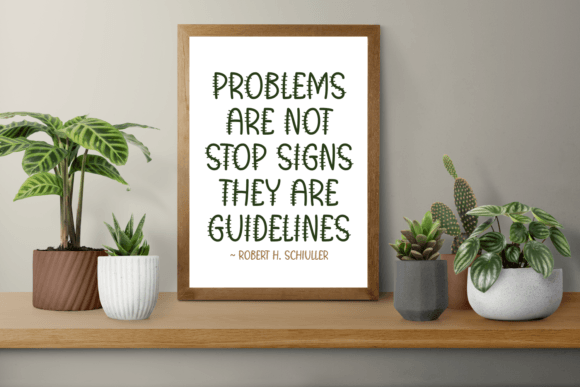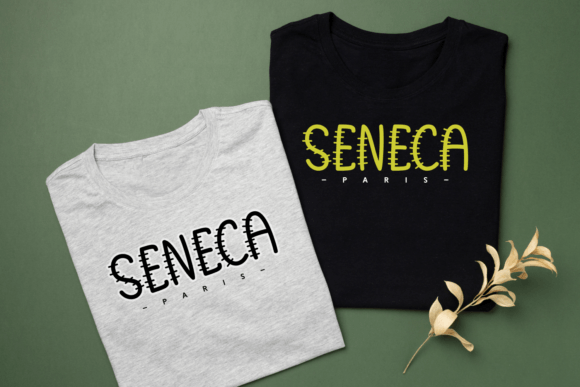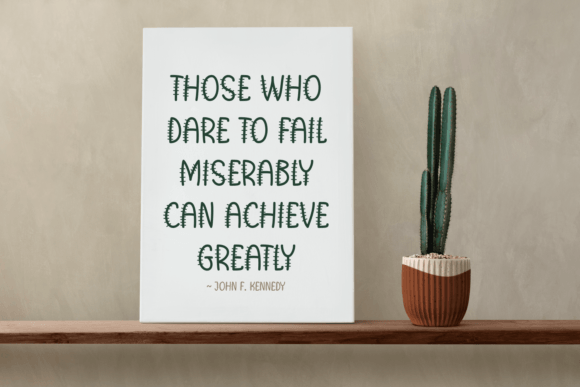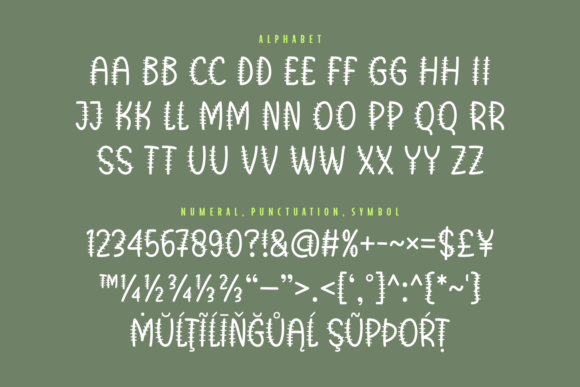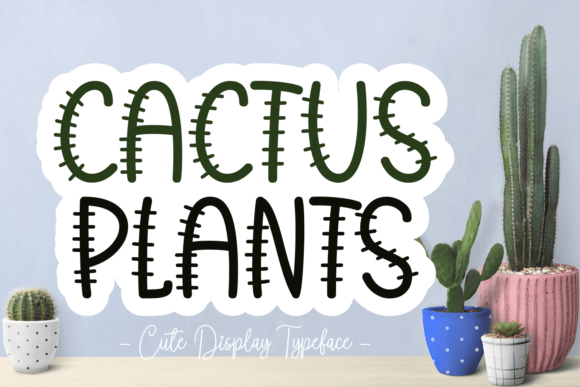
The Prickly yet Perfect Cactus Plants Font: A Designer’s Delight
I’ll never forget the time I was working on a branding project for a trendy new plant shop. My client wanted a logo that screamed “desert chic,” but I was struggling to find the perfect font. That was until I stumbled upon the Cactus Plants font. With its fancy, hand-drawn lettering, it was love at first sight! ✨ In this article, I’ll share my experience with this adorable font, its features, and how to make the most of it in your designs.
• Unique, hand-drawn design that’s perfect for adding a touch of personality to your projects ✅
• Supports OpenType features, glyphs, and stylistic alternates for endless creative possibilities 🎨
• Works beautifully for logos, labels, and other graphical elements 📦
• Fantastic for projects that need a bit of whimsy and playfulness 🌟
While I adore the Cactus Plants font, there are a few things to keep in mind ⚠️:
• Some letters may be a tad too ornate for very small font sizes 🤔
• Limited use for body text due to its decorative nature 📝
The Story Behind Cactus Plants
Imagine a designer, sitting in a desert landscape, surrounded by cacti and inspired by their unique shapes and resilience. That’s roughly how the Cactus Plants font came to be! With a passion for bringing a bit of the wild into everyday design, the creator meticulously hand-drew each letter, infusing the font with the desert’s quirky charm 🌵.
Is Cactus Plants suitable for body text? No, it’s best used for titles, headings, and short text due to its decorative nature.
The Cactus Plants font is a delightful addition to any designer’s toolkit, offering a unique blend of whimsy and elegance. Whether you’re working on a branding project, crafting a label, or simply looking to add some personality to your designs, this font is sure to prick your interest and inspire your creativity! 🌵✨